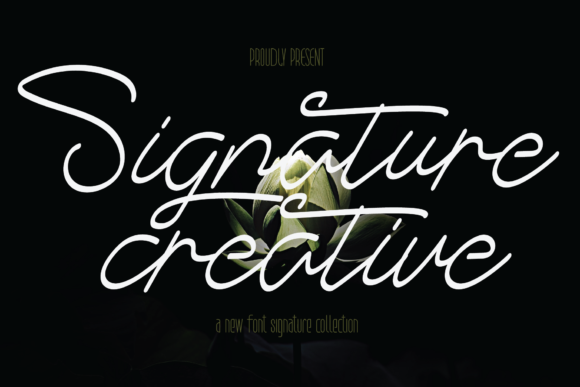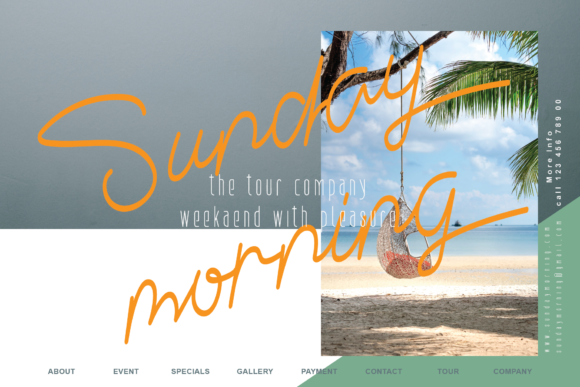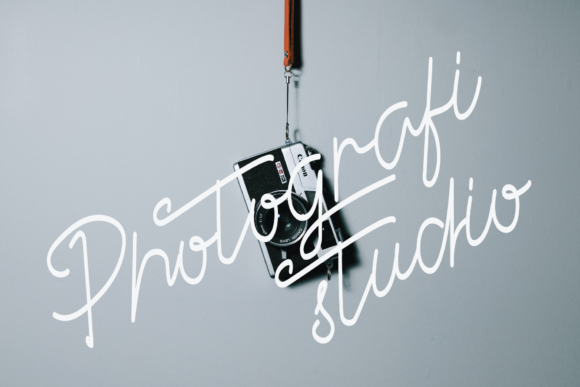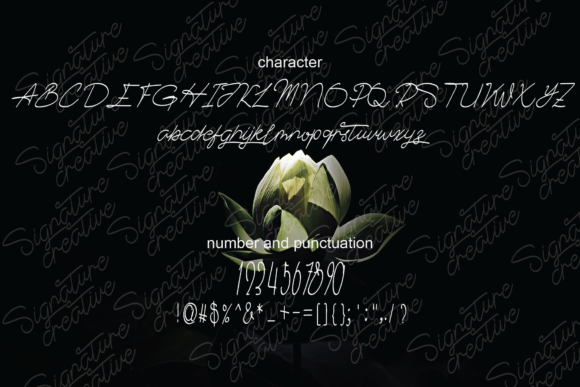
Signature Creative Font
About Signature Creative Font
Signature Creative is a beautiful and calligraphic font that exudes elegance and class. This font is specially crafted for those who need a beautiful and refreshing look to their designs.